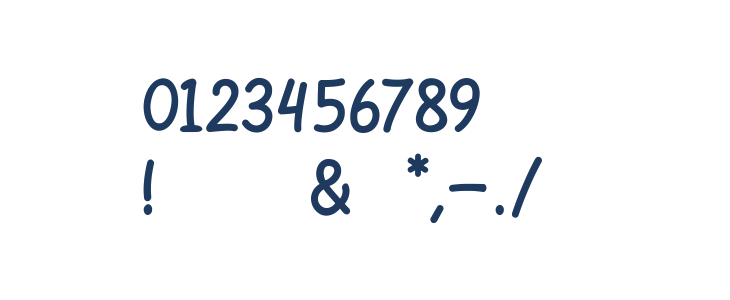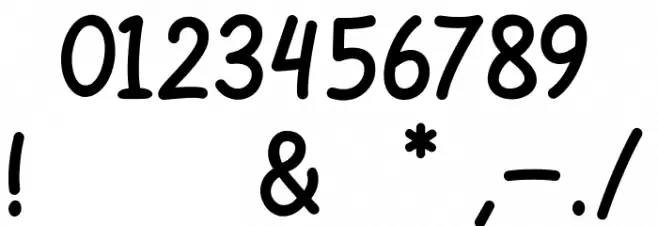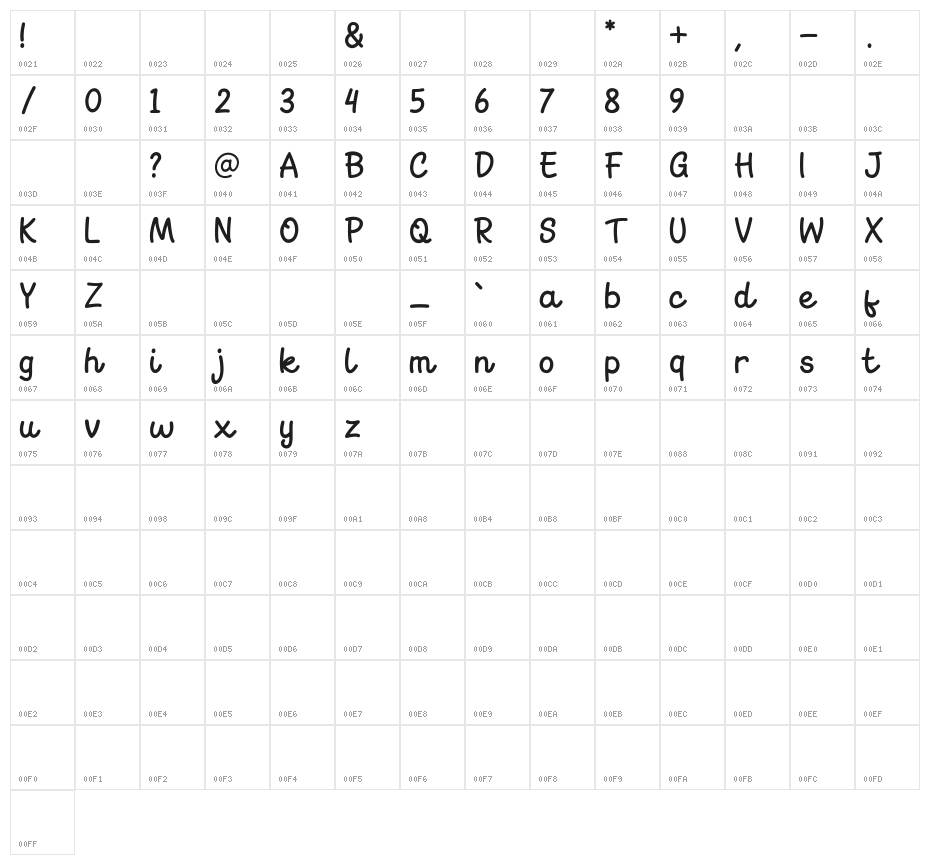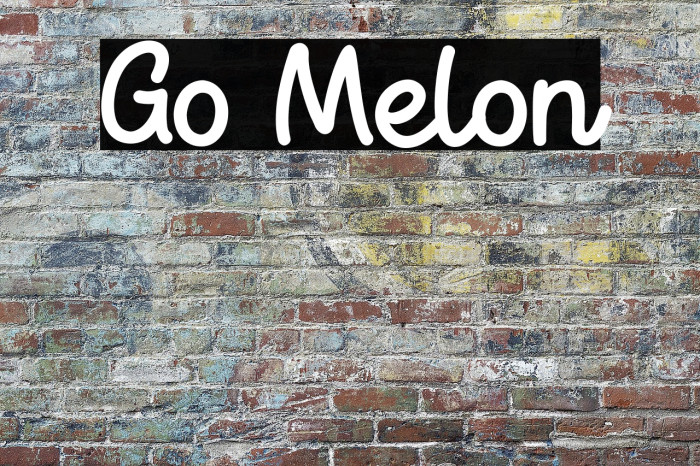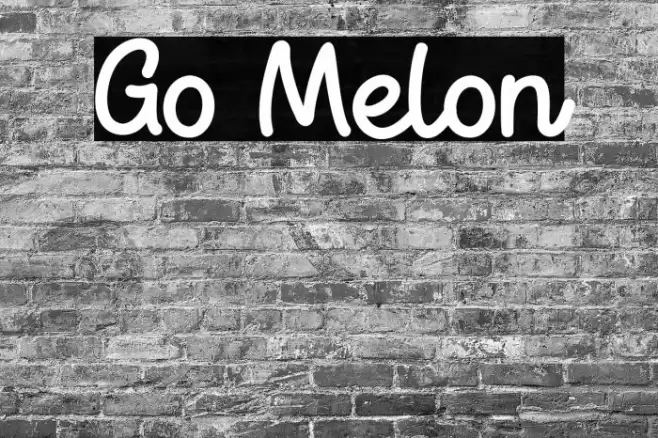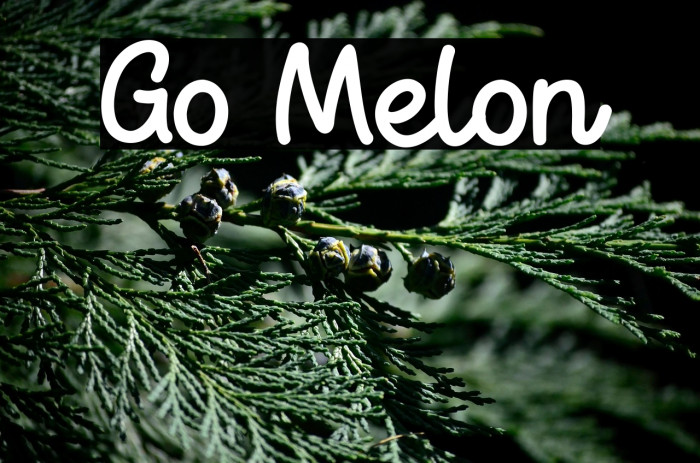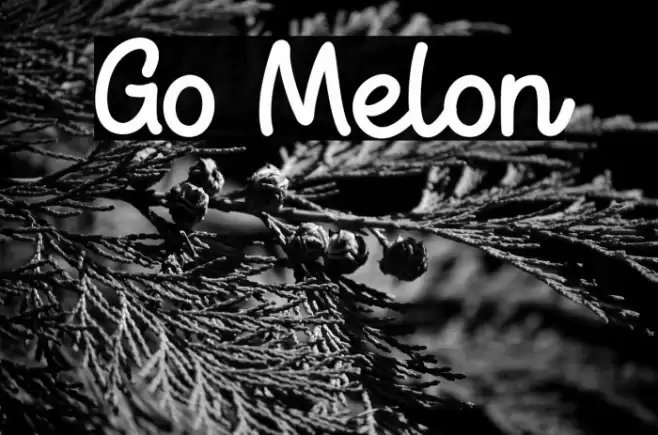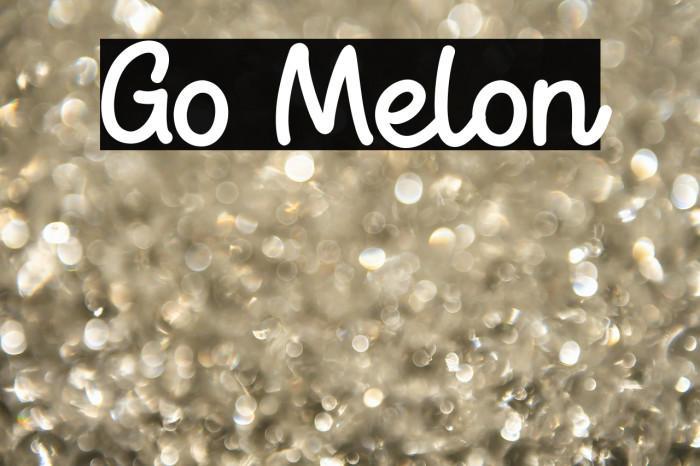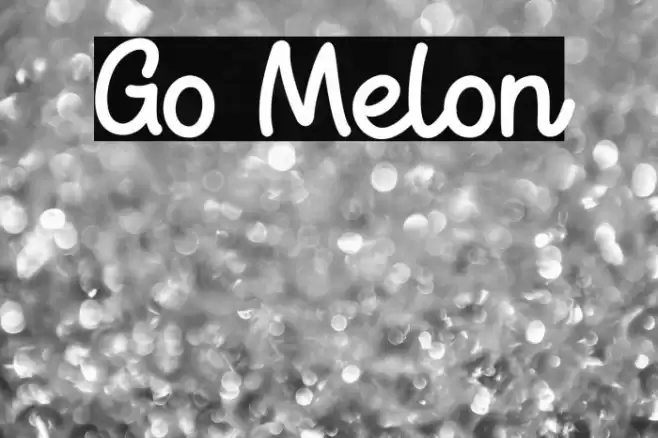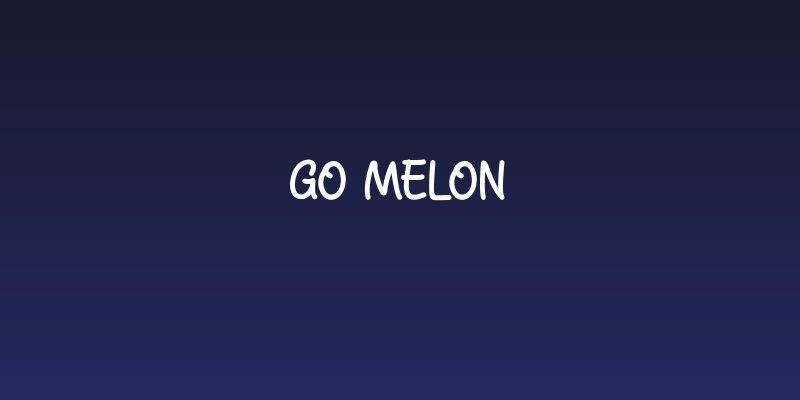
Go Melon Font
Go Melon Description
This playful and energetic font features a handwritten style with a casual and friendly appearance. The letters are rounded and slightly irregular, giving it a whimsical and approachable feel. The uppercase and lowercase characters maintain a consistent flow, while the numerals and special characters complement the overall style with their bold and clear design. The font's informal nature makes it ideal for projects that require a personal touch or a fun, lighthearted vibe.
| Use Case | Headlines, Informal text, Branding |
| Proposed Projects | Ideal for greeting cards, children's books, playful branding, and social media graphics. |